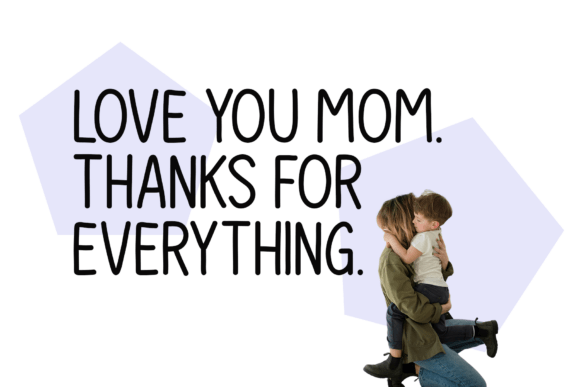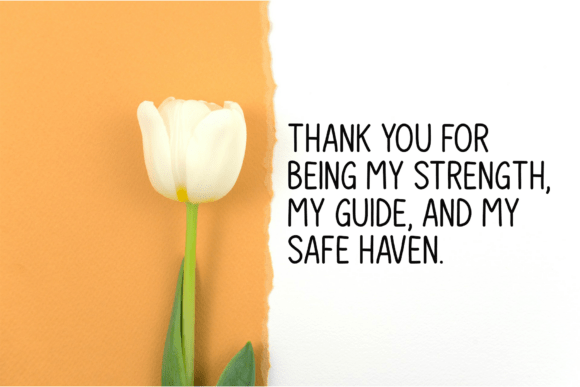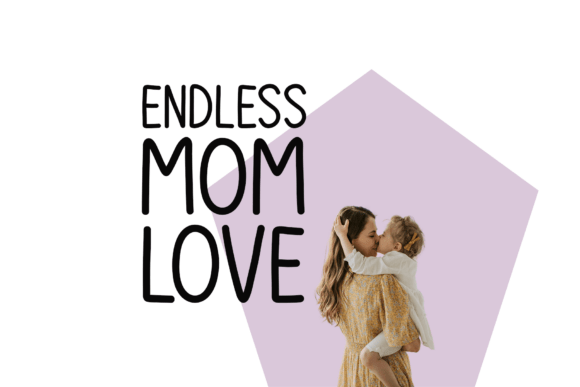
Introducing Happy Mother Font: The Perfect Blend of Fun and Sophistication
Are you a designer or crafter looking for a unique and eye-catching font to elevate your creative projects? Look no further than Happy Mother Font, a delightful handwritten font that effortlessly combines fun and sophistication. With its organic, custom feel, Happy Mother Font is perfect for creating a wide range of materials, from logos and t-shirt designs to invitations, website headers, flyers, social media graphics, and print materials.
The Characteristics of Happy Mother Font
Happy Mother Font is a carefully crafted handwritten font that boasts a distinctive, hand-crafted touch. Its unique characteristics make it an ideal choice for designers and crafters who want to add a personal touch to their projects. The font features:
- Handwritten style: Happy Mother Font has a beautiful, handwritten style that adds a touch of warmth and personality to any project.
- Organic feel: The font’s organic feel makes it perfect for creating materials that require a custom, hand-crafted look.
- Fun and sophisticated: Happy Mother Font combines fun and sophistication, making it suitable for a wide range of projects, from playful t-shirt designs to elegant invitations.
Uses for Happy Mother Font
Happy Mother Font is an incredibly versatile font that can be used for a variety of creative projects. Here are some ideas to get you started:
- Logos: Create a unique and memorable logo for your business or brand with Happy Mother Font.
- T-shirt designs: Design eye-catching t-shirts with Happy Mother Font that’s perfect for casual wear or promotional materials.
- Invitations: Add a personal touch to your invitations, whether it’s for a wedding, birthday party, or baby shower.
- Website headers: Elevate your website’s design with Happy Mother Font, perfect for creating a custom header that reflects your brand’s personality.
- Flyers: Create eye-catching flyers for events, promotions, or services with Happy Mother Font.
- Social media graphics: Use Happy Mother Font to create engaging social media graphics that stand out from the crowd.
- Print materials: Add a touch of elegance to your print materials, such as brochures, business cards, or posters, with Happy Mother Font.
Why Choose Happy Mother Font?
With so many fonts available, why choose Happy Mother Font? Here are just a few reasons why designers and crafters love this font:
- Unique and distinctive: Happy Mother Font is a one-of-a-kind font that will set your projects apart from the rest.
- Easily readable: Despite its handwritten style, Happy Mother Font is easily readable, making it perfect for body text and headlines.
- Customizable: Happy Mother Font can be customized to fit your project’s needs, whether it’s adjusting the size, color, or style.
Tips for Using Happy Mother Font
To get the most out of Happy Mother Font, here are some tips to keep in mind:
- Pair with complementary fonts: Pair Happy Mother Font with complementary fonts to create a visually appealing design.
- Experiment with colors: Try out different colors and color combinations to find the perfect match for your project.
- Use for headlines and titles: Happy Mother Font is perfect for headlines and titles, adding a touch of personality to your design.
Happy Mother Font is a delightful handwritten font that combines fun and sophistication, making it perfect for a wide range of creative projects. With its organic, custom feel and unique characteristics, Happy Mother Font is sure to elevate your designs and add a personal touch to your materials. Whether you’re a designer or crafter, Happy Mother Font is a great choice for anyone looking to create unique and eye-catching projects.